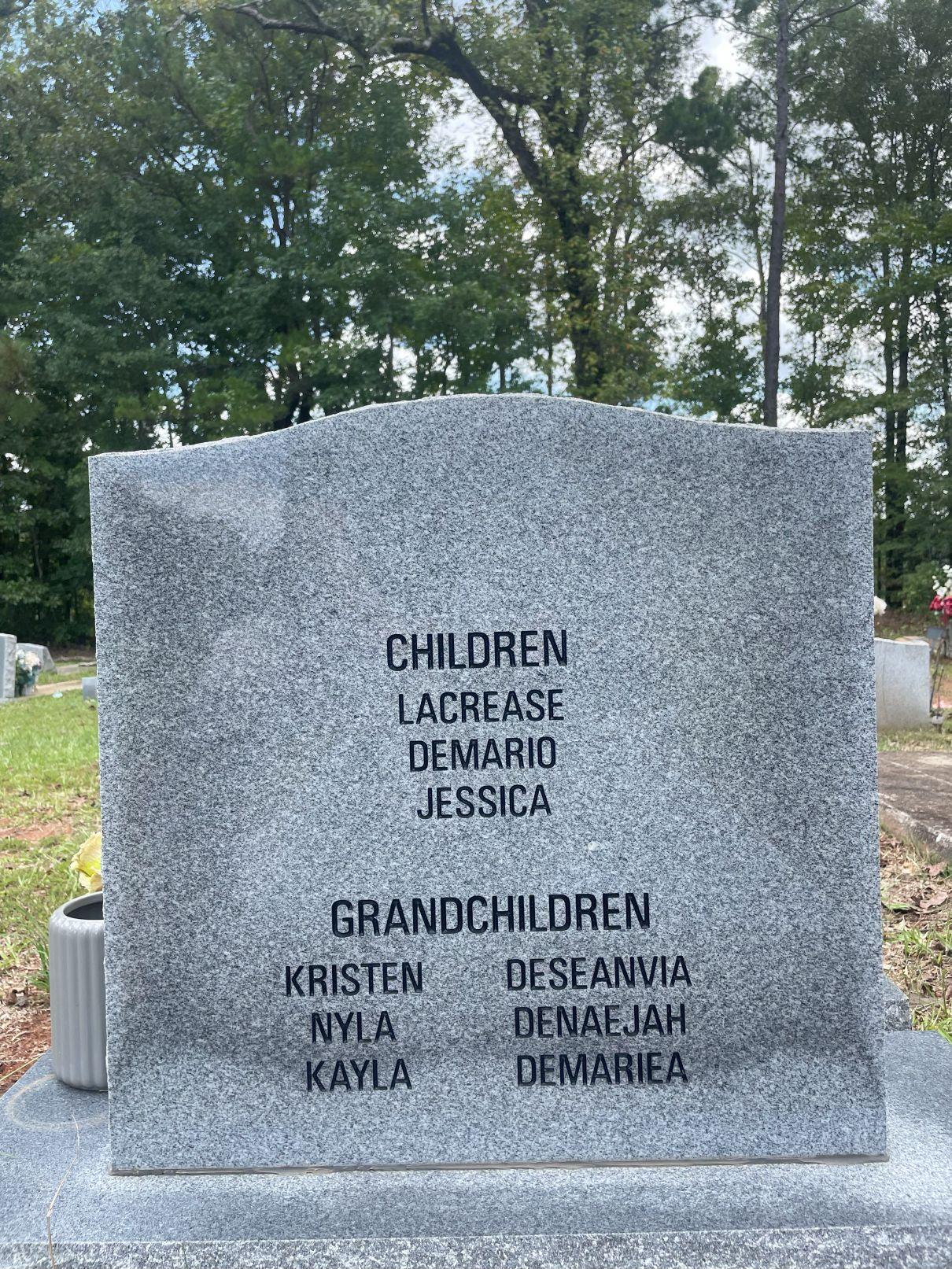
Font Help Home › Forums › Lettering and Font Identification › Font Help This topic has 1 reply, 2 voices, and was last updated 1 year ago by MLC. Viewing 2 posts - 1 through 2 (of 2 total) Author Posts August 14, 2025 at 1:00 pm #11950 John WeekleyParticipant Can you identify the font that is in the below picture? August 14, 2025 at 8:58 pm #11954 MLCKeymaster Hi John, this appears to be a version of Univers. Perhaps Univers 57, but looks like it might be a slightly wider version. Author Posts Viewing 2 posts - 1 through 2 (of 2 total) You must be logged in to reply to this topic. Log In Username: Password: Keep me signed in Log In